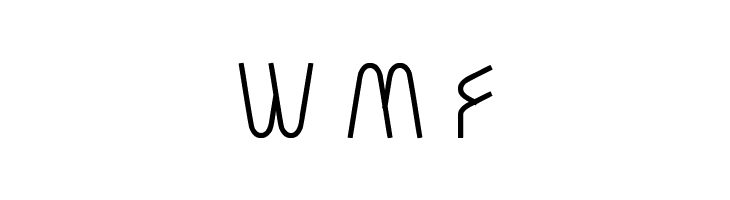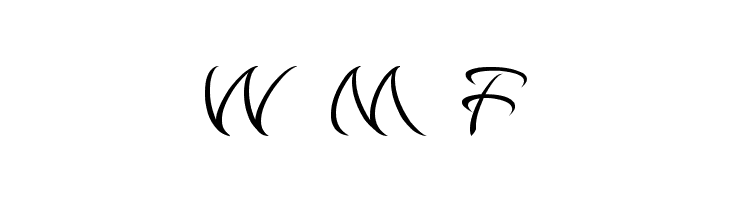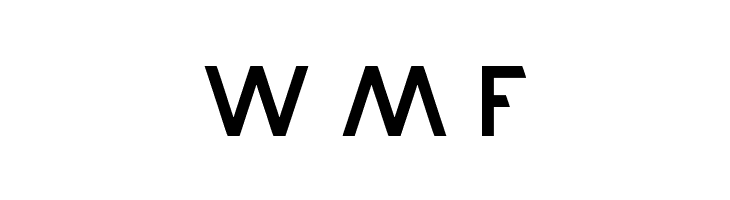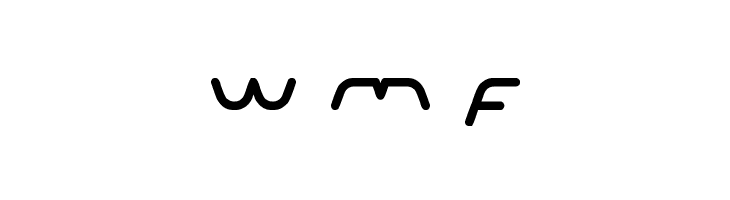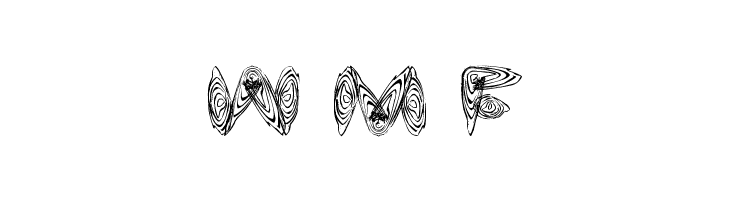
A playful, interconnected font with bold strokes and a modern, artistic style.
A whimsical, bold, and decorative font with interconnected strokes and a calligraphic style.
A bold, geometric font with intricate, angular designs and a futuristic aesthetic.
A bold, italicized font with a playful and dynamic style.
A bold, rounded font with a playful and whimsical style.
A bold, geometric font with a futuristic and digital aesthetic.
A rounded, geometric sans-serif font with a clean, modern look.
An artistic font with characters designed to resemble bird feathers.
A modern, angular font with a futuristic and geometric design.
A geometric, futuristic font with angular lines and a modern aesthetic.
A modern, decorative font with playful curves and sharp edges.
A dynamic, calligraphic font with flowing strokes and sharp edges.
An elegant script font with flowing, graceful curves and dynamic slant.
A bold, geometric font with a futuristic and modular design.
A bold, playful font with dynamic, rounded characters and a whimsical style.
A futuristic and abstract font with smooth, flowing lines and a dynamic style.
A whimsical, vine-like font with delicate, artistic curves.
A whimsical, artistic font with flowing, interconnected strokes and playful loops.
A modern, geometric font with a futuristic style.
A playful, whimsical script font with fluid, interconnected letters.
A fluid, wave-inspired script font with smooth, continuous lines.
A futuristic, geometric font with rounded edges and continuous strokes.
A bold, playful font with rounded edges and a retro pop art vibe.
A bold, angular, and geometric font with a futuristic style.
A futuristic, geometric font with interconnected lines and a sleek design.
A modern font with diagonal line patterns creating a textured, dynamic look.
A modern, rounded font with a playful geometric style.
A bold, modern font with a double-line effect and geometric structure.
A decorative and abstract font with swirling, fluid patterns.
A decorative font with arrow-themed embellishments, offering a tribal aesthetic.
A playful, bold font with rounded edges and a whimsical style.
A bold, geometric font with a futuristic and aerodynamic style.
A bold, decorative font with sharp angles and geometric shapes, ideal for striking designs.